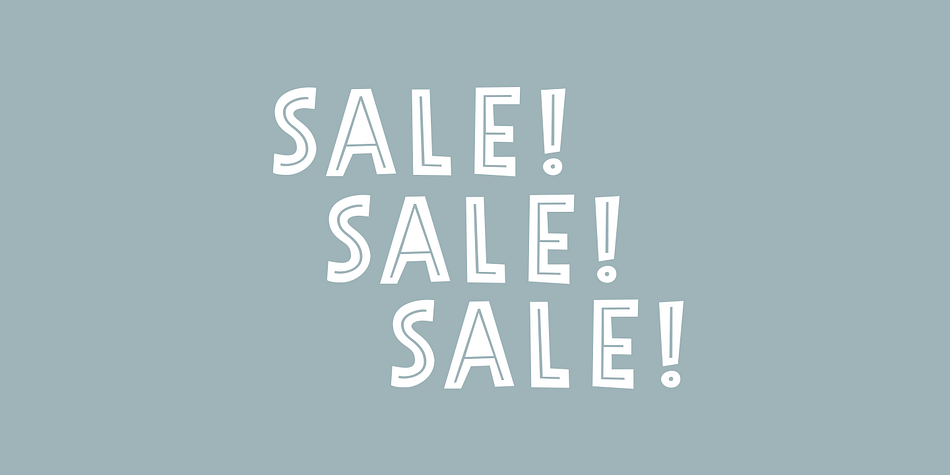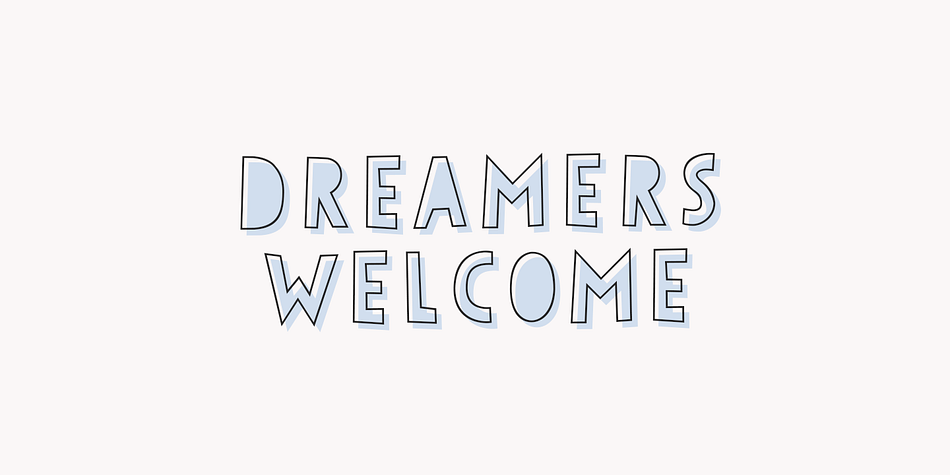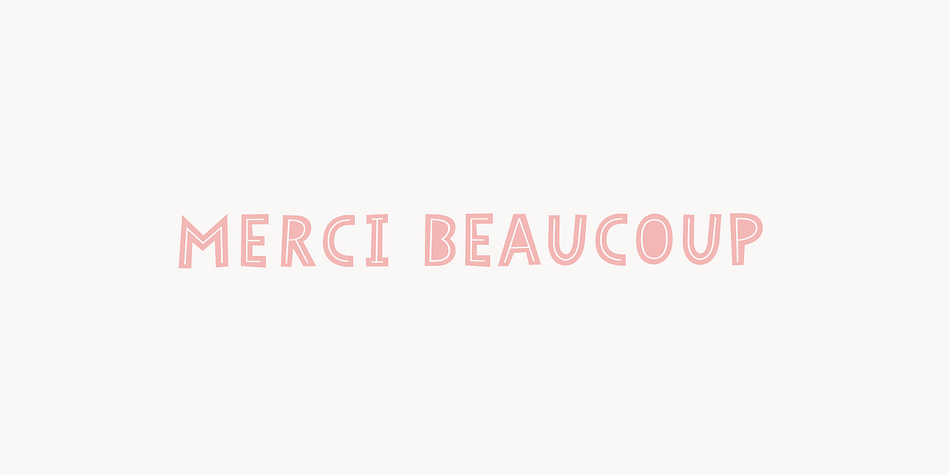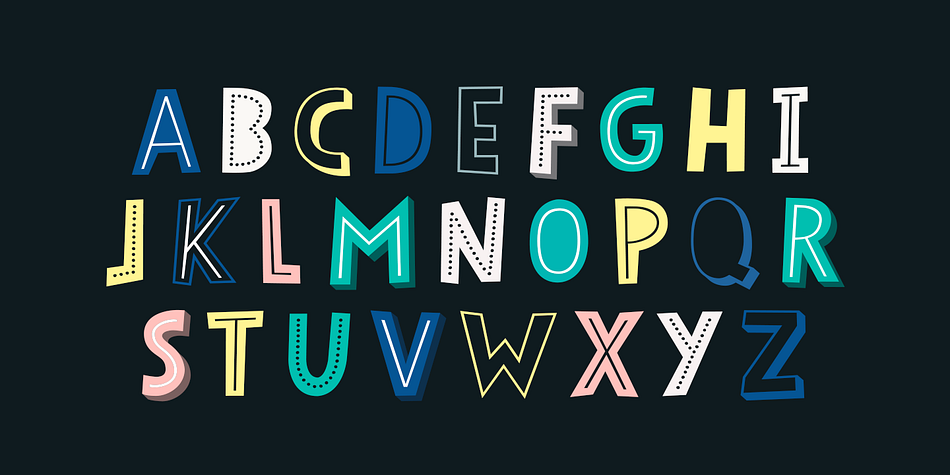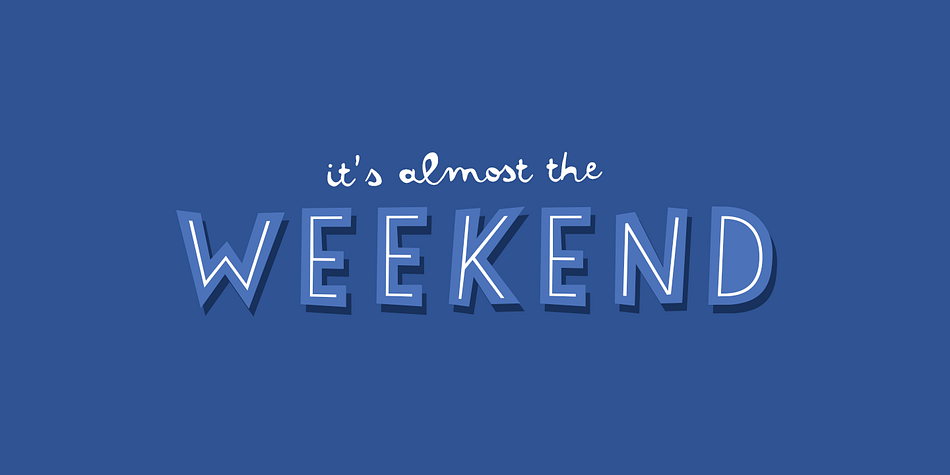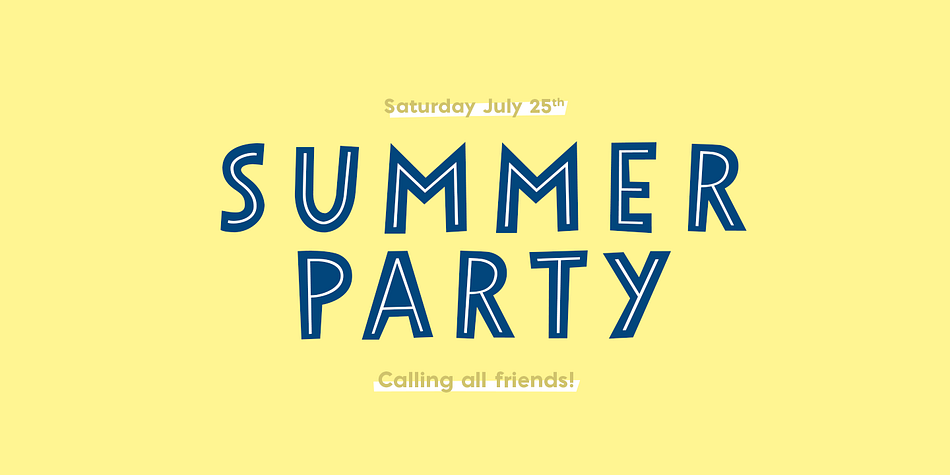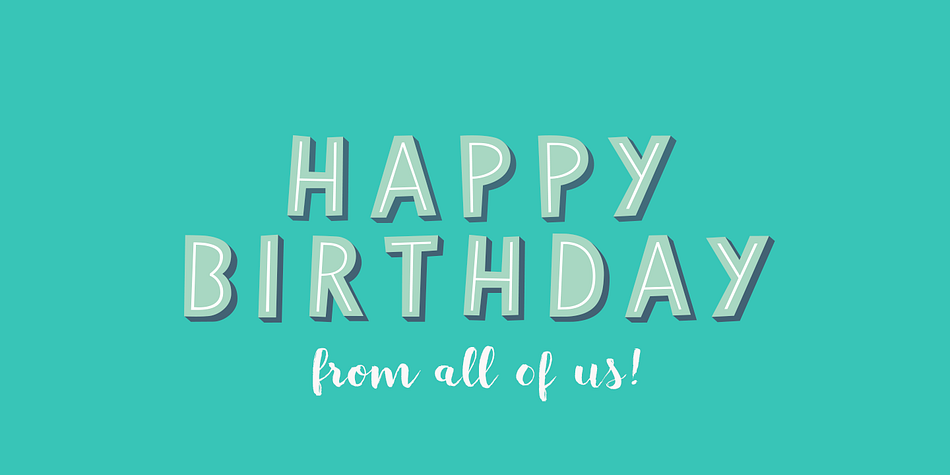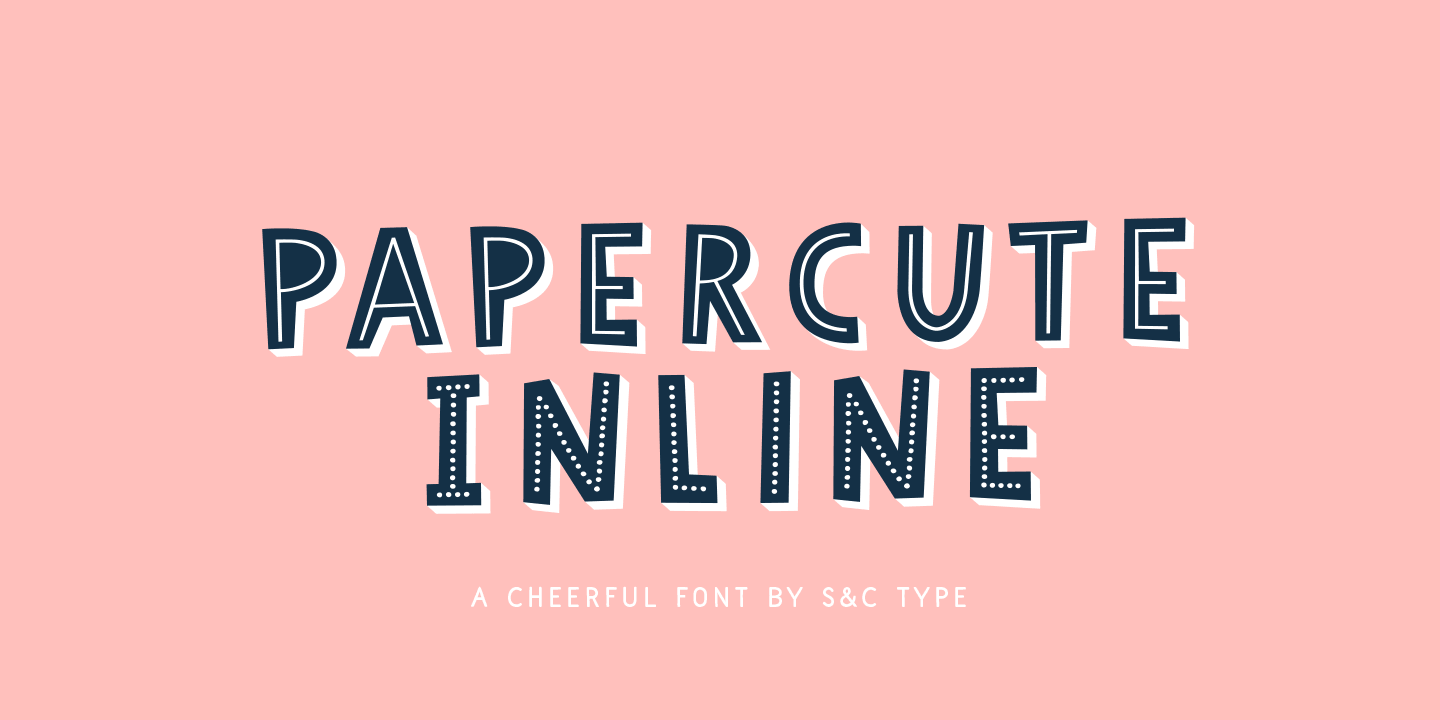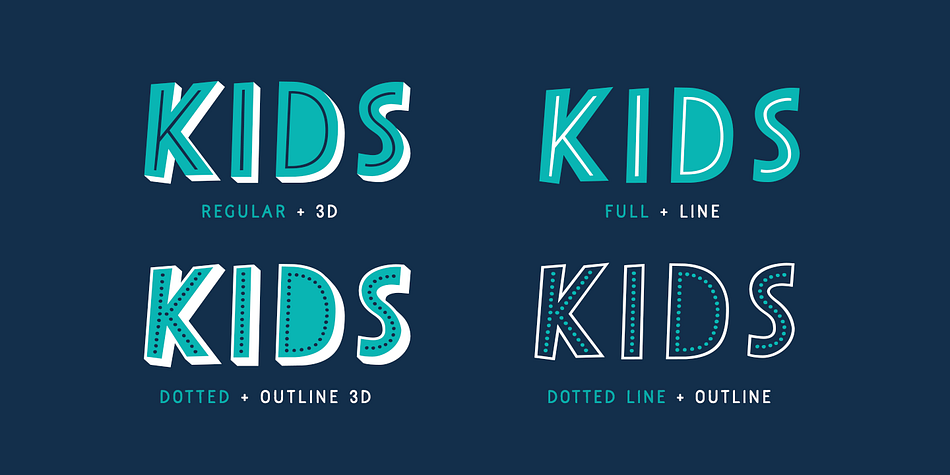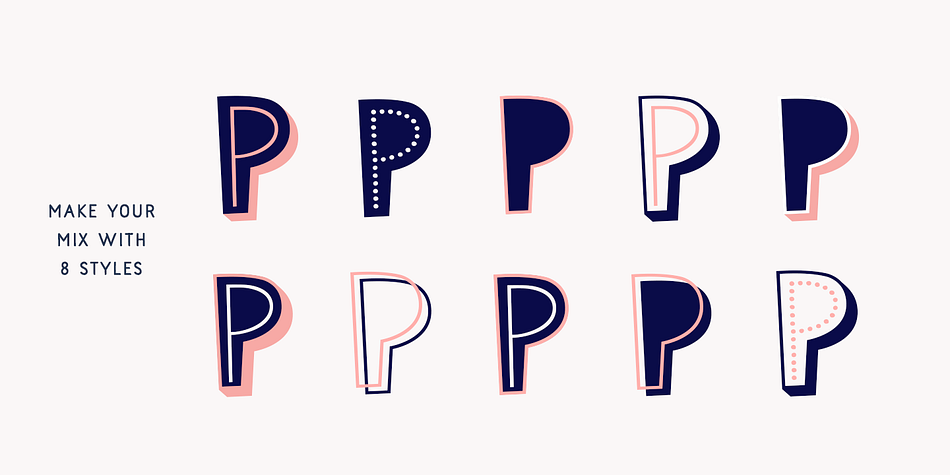
Designed by Julien Saurin and Fanny Coulez, Papercute Inline is a hand display font family. This typeface has eight styles and was published by S&C Type.
Papercute Inline is a cute layered hand-drawn font designed by Fanny Coulez & Julien Saurin in Paris. Inspired by paper cutting, this font is easy to read, and easy to play with 8 different styles, including 3D, outline, full or dotted line, that you can use alone or together. To do so, you can simply superimpose them with a compatible software like Photoshop, then choose a color for each, making your works charming and unique.
This font, finely designed for cards, book titles, headlines or any artworks is the Inline version of Papercute. Just click on our foundry name to see it!